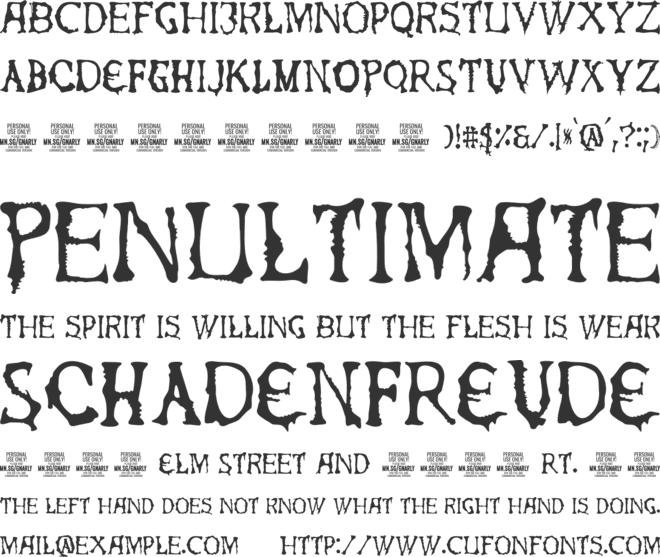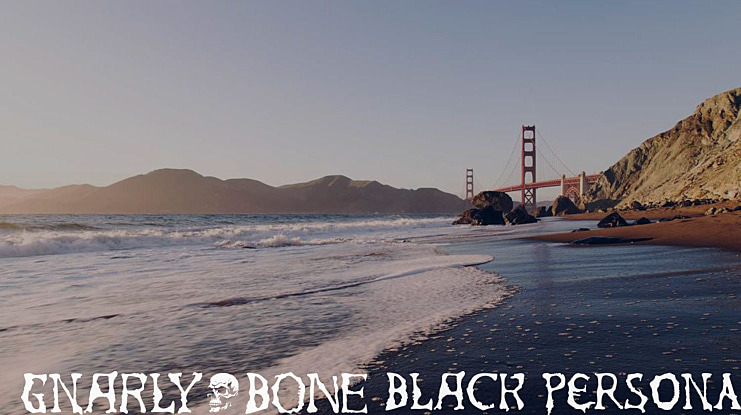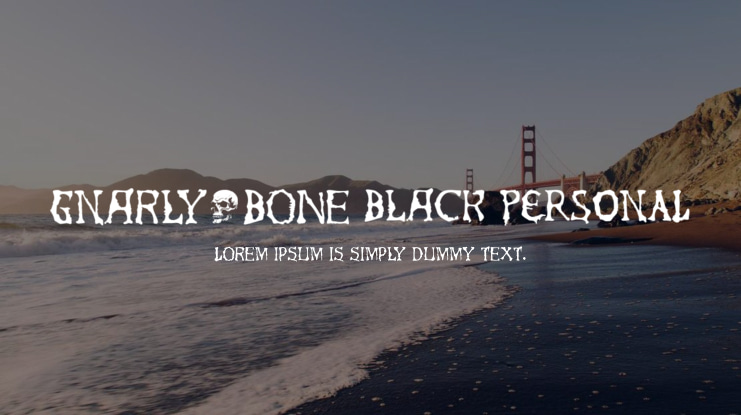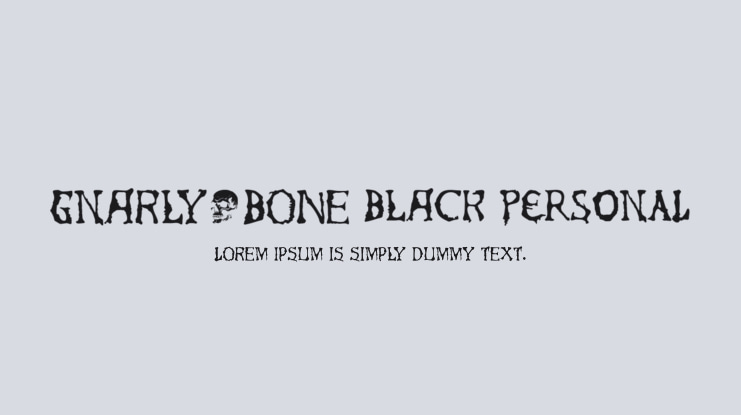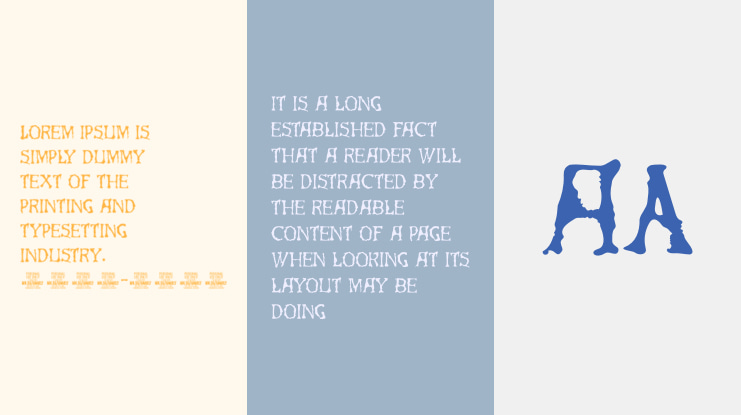
Gnarly Bone Black PERSONAL Font Family
Mans Greback
Gnarly Bone spawns from the eerie silence of a moonlit graveyard, merging skeletal fragments and bone parts to create an alphabet that is as frightening as it is fascinating.
Ideal for posters, invitations or banners for horror or Halloween themed events.
Use the currency symbol ¤ to make a skull.
Example: haLl¤weEn
Use multiple to make different skulls.
Example: ¤¤¤¤¤Darkness¤¤¤¤